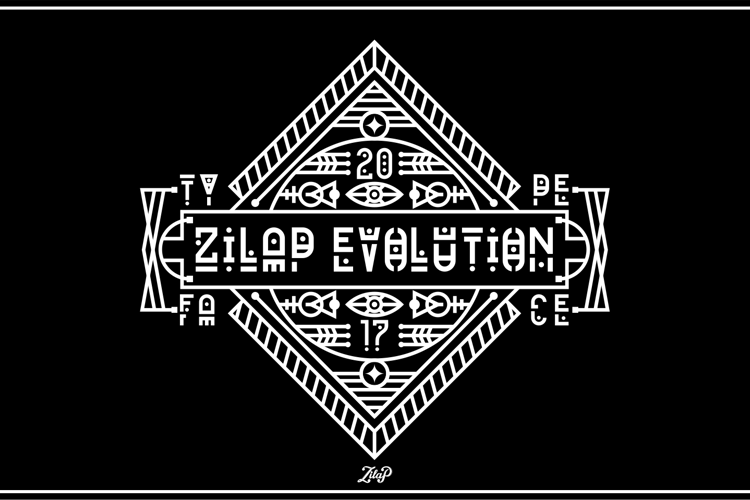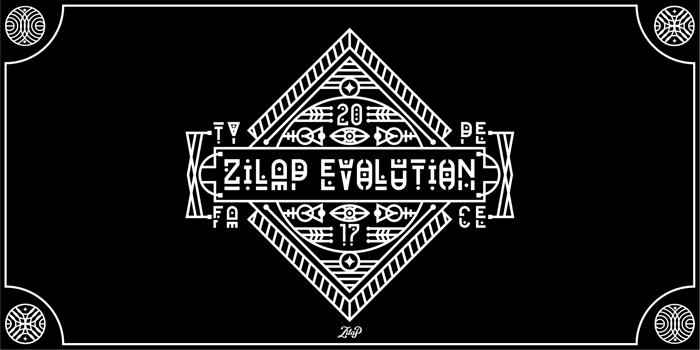
Zilap Evolution Font
ZILAP EVOLUTION: This font is created by the exploration of the genre and urban musician style, its design also has a little futuristic concept, and is thought to be used for logos and projects very dynamic, animated and colorful..
Design & Concept by Zilap Studio
Assembly and foundry by LJ Design Studios